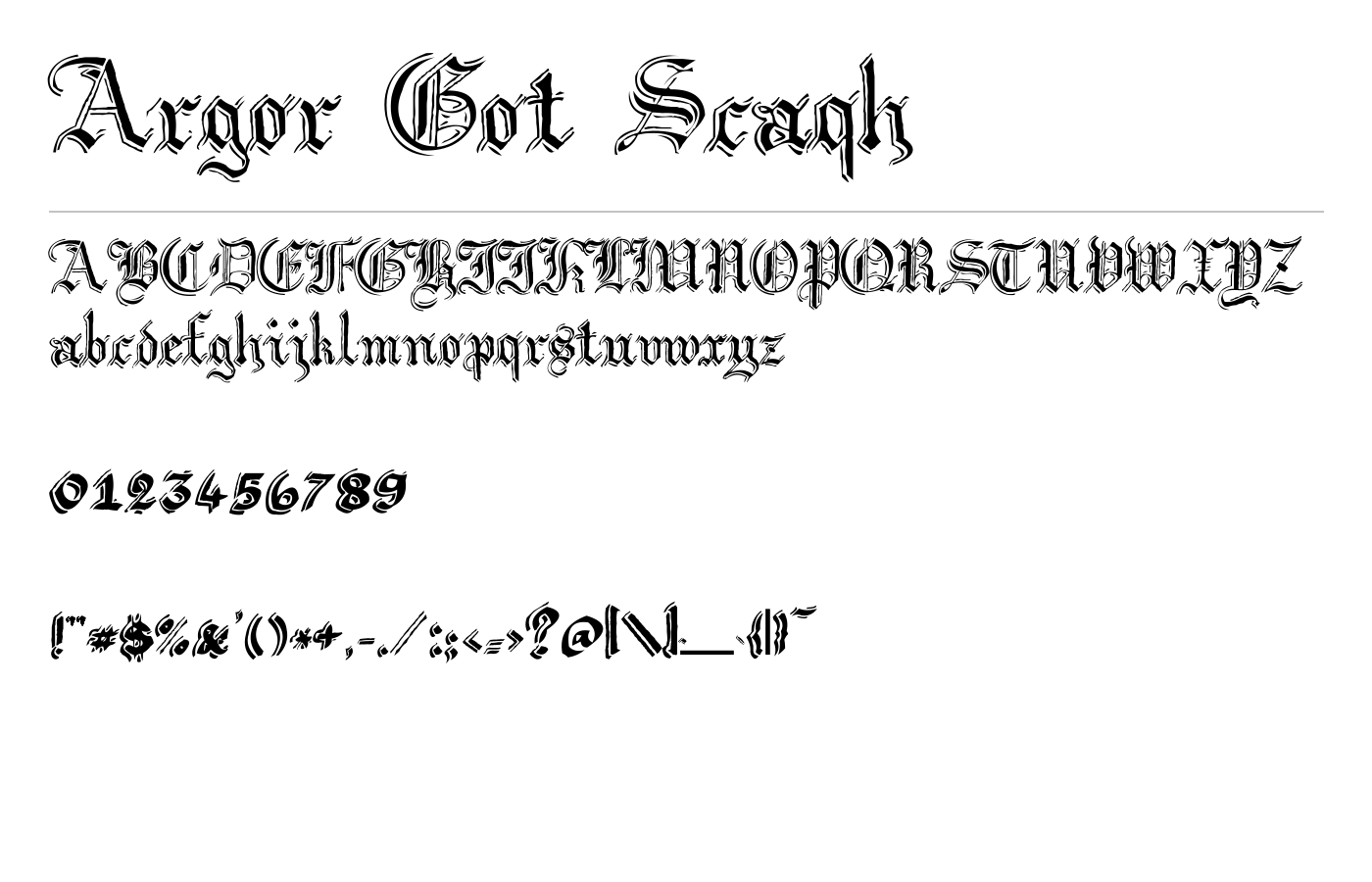
Argor Got Scaqh is a bold blackletter serif font with dramatic, sharp strokes and intricate ornamental details that evoke a historic Gothic style. Its high contrast between thick and thin lines, combined with decorative letterforms and a textured appearance, makes it ideal for designs seeking a vintage, medieval, or darkly elegant mood. This font works best in display settings like logos, headlines, or themed posters where an old-world, authoritative character is desired.
Argor Got Scaqh Font
About Argor Got Scaqh Font